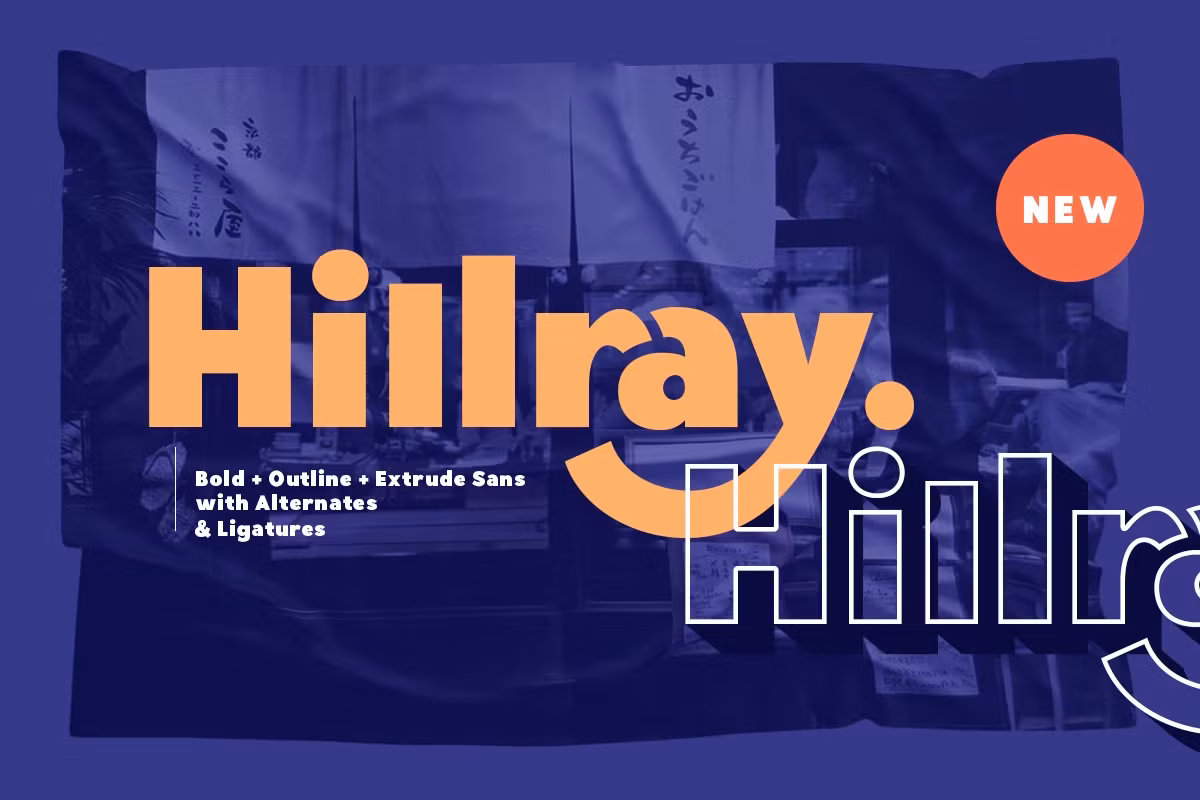
Modern, confident, and clean, Hillray - Stylish Bold Sans Font Free Download is a striking sans-serif typeface designed to command attention. With its bold letterforms and sleek geometry, this font is perfect for branding, headlines, posters, website headers, and any project that needs a powerful visual presence.
Hillray offers a contemporary edge while remaining highly legible, making it an excellent choice for both digital and print applications. Its strong personality pairs well with minimalist layouts, bold color schemes, and high-impact visuals.